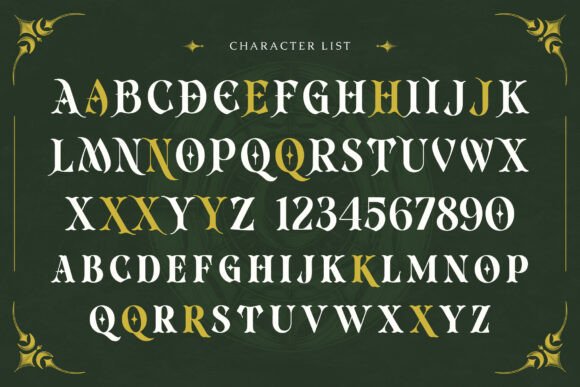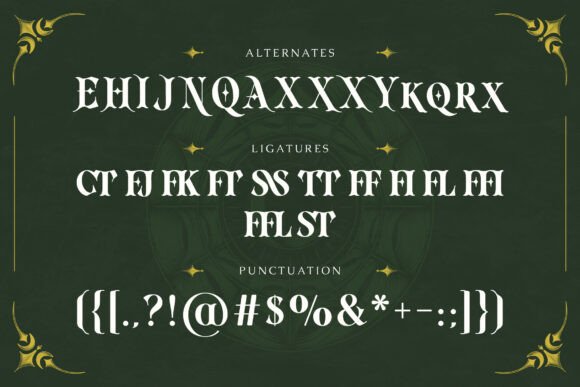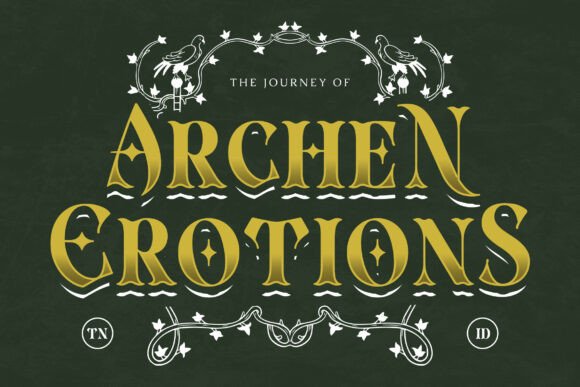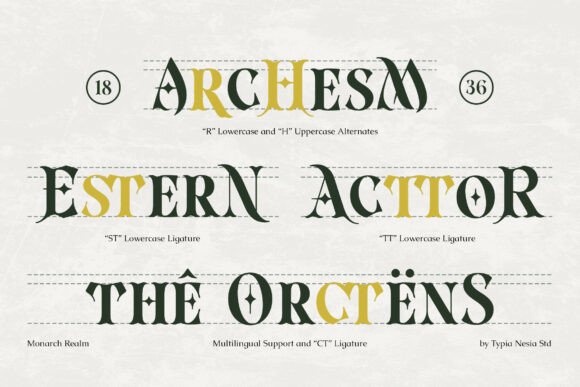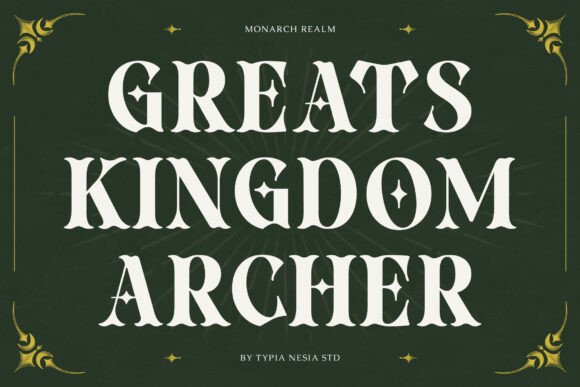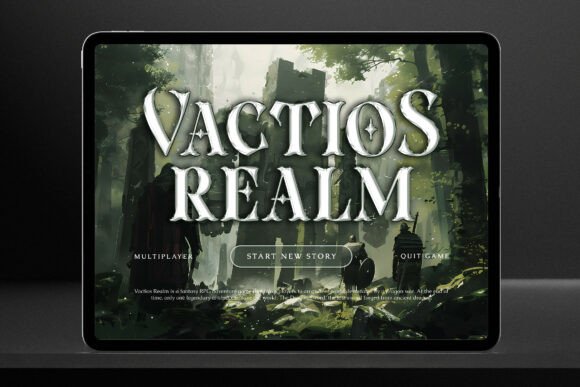
Introduction to Monarch Realm Font
Have you ever stared at a beautiful game title or movie poster, feeling captivated by the elegant typography and wondering what font made it so mesmerizing? For designers, finding the perfect font can be a game-changer. It’s the difference between a project that’s merely good and one that’s truly unforgettable.
That’s where the Monarch Realm Font comes in – a stunning, high-quality serif font designed to evoke luxury and royal elegance. This modern, magical fantasy game font is perfect for designers looking to add a touch of sophistication and whimsy to their creative projects. With its transparent background and free download option, it’s a valuable resource for designers of all levels.
Whether you’re working on a thrilling movie title, an immersive game interface, or a captivating novel cover, the Monarch Realm Font is sure to make your project stand out with authority and enchanting detail.
Key Features of Monarch Realm Font
- High-quality, professional font design for creative projects, ideal as a design resource for graphic designers and artists.
- Unique, elegant design with a transparent background, making it perfect for use on dark or light backgrounds, and adding a touch of sophistication to any creative project.
- Monarch Realm Font is a versatile font that can be used for a wide range of applications, from branding and logos to typography and editorial design.
- The font is highly customizable, allowing designers to adjust the size, color, and style to suit their specific needs and creative vision.
Honest Review: Monarch Realm Font
I recently stumbled upon the Monarch Realm Font, and I must say it’s been a game-changer for my design projects. As a designer, I’m always on the lookout for high-quality design resources that can elevate my creative projects.
- ✨ High-quality design: The font is beautifully crafted, with a unique and elegant style that’s perfect for a wide range of projects.
- ✨ Transparent background: The font has a transparent background, which makes it easy to use in various design scenarios.
However, there are a few limitations I’ve encountered:
- ⚠️ Limited font styles: While the font itself is beautiful, the number of available styles is limited, which may not be ideal for designers who need more flexibility.
- ⚠️ Not ideal for bold text: I found that the font doesn’t work well with bold text, which can make it difficult to use in certain design scenarios.
Overall, I’m impressed with the Monarch Realm Font. While it may have some limitations, its unique design and free download make it a valuable resource for designers. I’ll definitely be using it in my future creative projects.
Monarch Realm Font
The Monarch Realm Font is a high-quality design resource perfect for creative projects. This free download offers a transparent background, making it easy to integrate into various design platforms.
Tips for Getting the Most Out of Monarch Realm Font
To get the most out of the Monarch Realm Font, experiment with different font sizes, colors, and styles to create a unique look. You can also combine the font with other design elements to add depth and visual interest to your project.
The Monarch Realm Font is ideal for use in creative projects such as logos, branding materials, and marketing materials. Its high-quality design and transparent background make it a versatile resource for designers and artists.